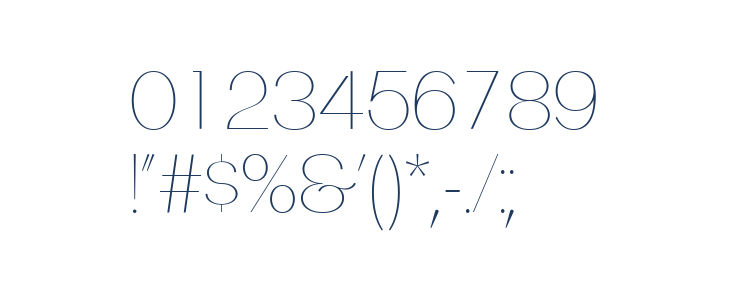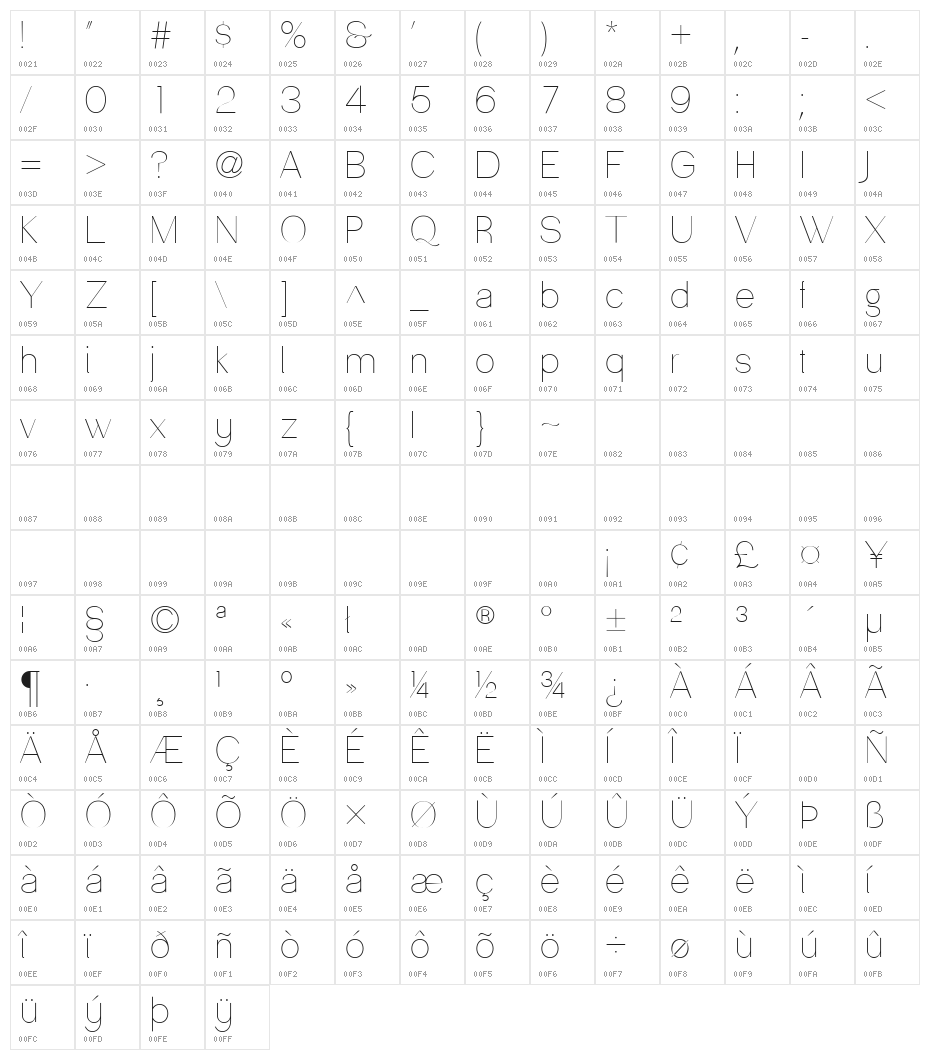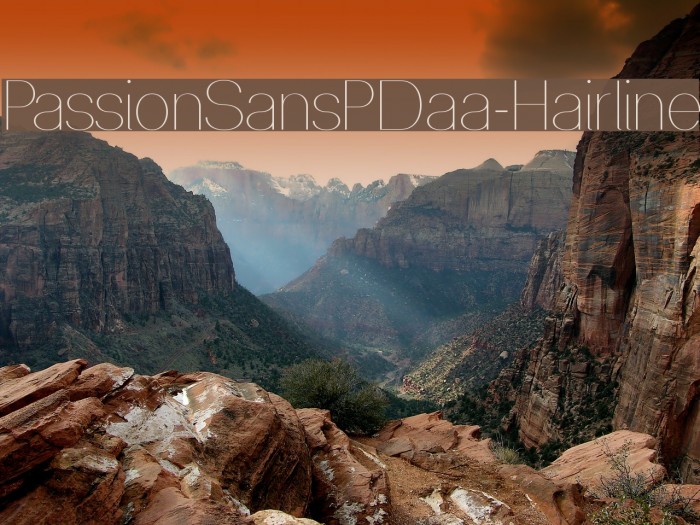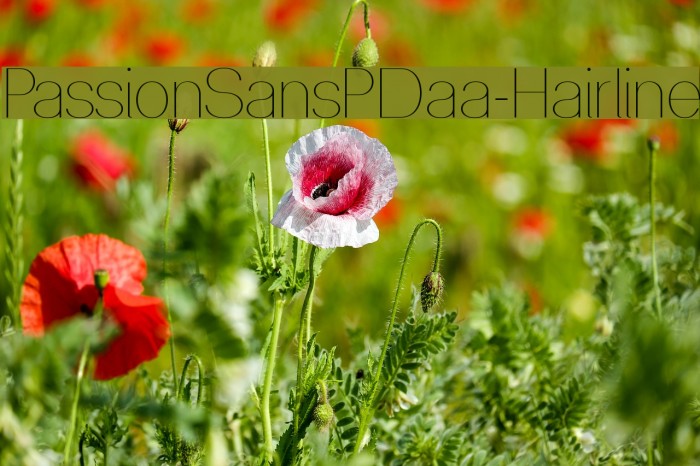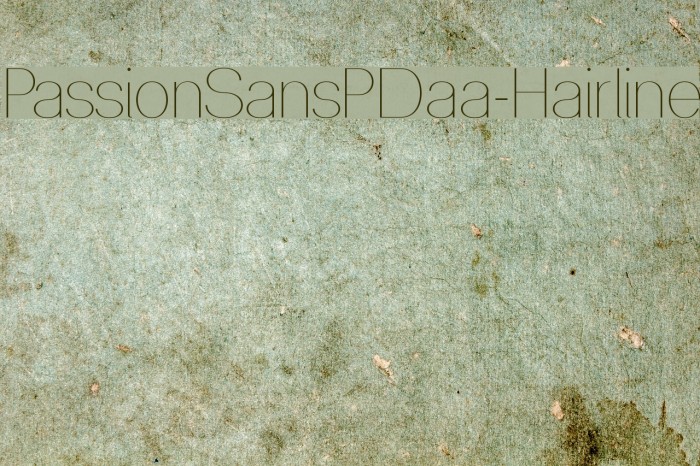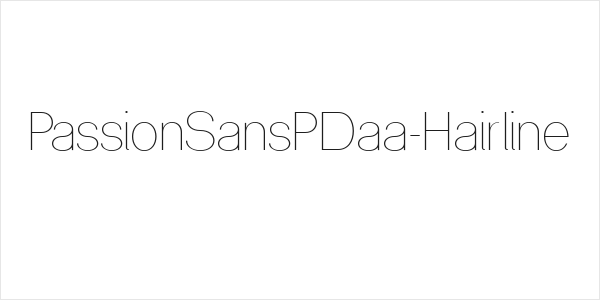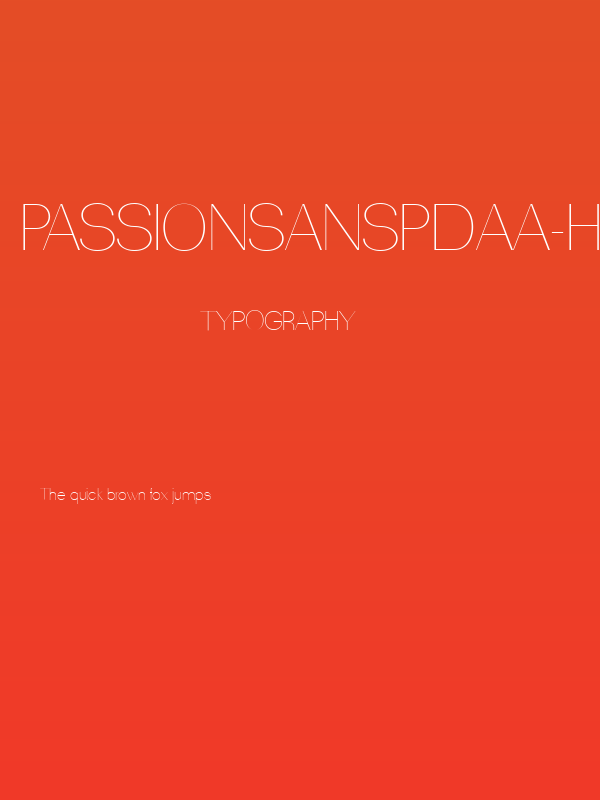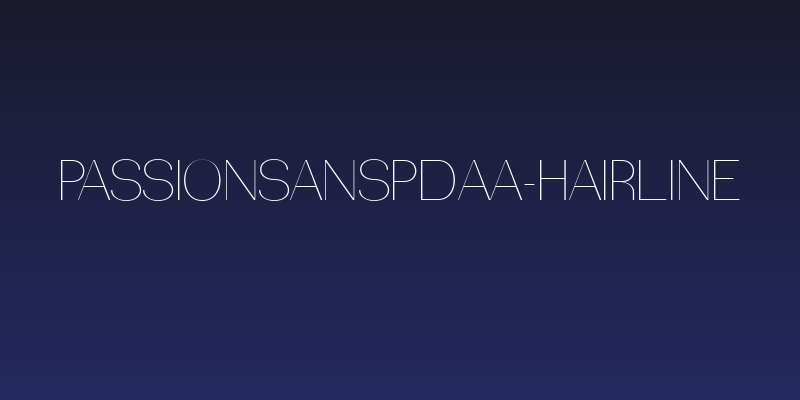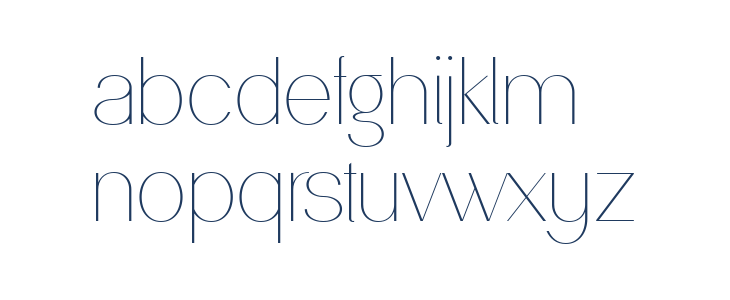
PassionSansPDaa-Hairline Font
PassionSansPDaa-Hairline Description
This font features an ultra-thin, elegant design with a modern and minimalist aesthetic. The characters are crafted with precision, showcasing a high level of geometric consistency and clarity. The uppercase and lowercase letters maintain a uniform stroke width, contributing to a sleek and sophisticated appearance. The numerals and special characters are designed to complement the overall style, ensuring readability and visual harmony. This font's delicate lines and airy structure make it ideal for projects that require a touch of elegance and modernity.
| Proposed Projects | Ideal for luxury branding, high-end fashion magazines, minimalist design projects, and elegant invitations. |